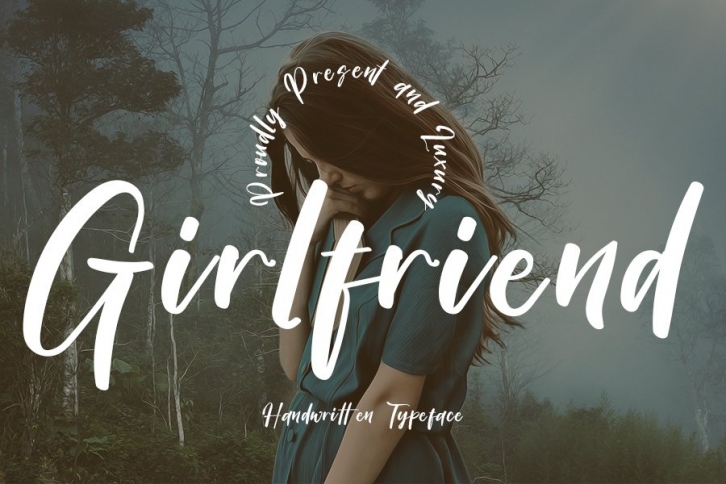
Girlfriend is a beautiful font that was designed by InermediaSTUDIO. It's a great choice for designers and creatives who need such a font. It was released on November 24, 2021 and the file size is 16.45 MB. Girlfriend may give a more youthful, expressive and casual look to your project. It is a very beautiful, refined, elegant, and high-quality font.